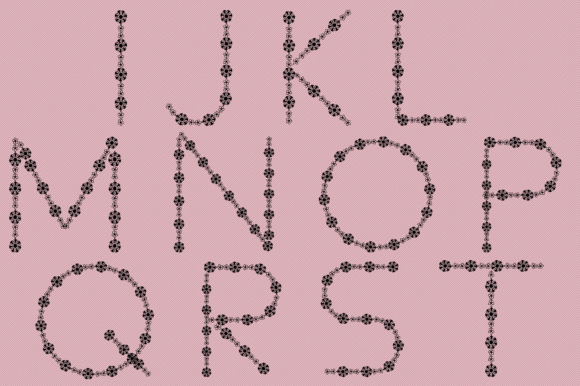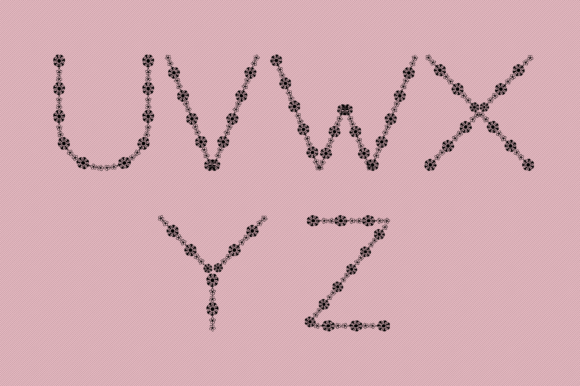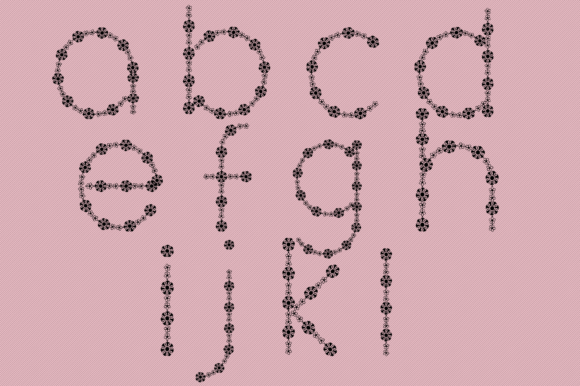
Introduction to Floral Lettering Font
Floral Lettering is a beautiful decorative typeface perfect for any floral designs you wish to create.
Add it to your wedding invitations, love letters, social media posts, packaging designs, and many more, and it will make them outstanding .